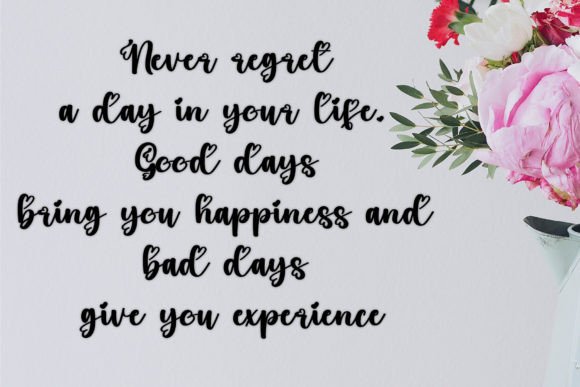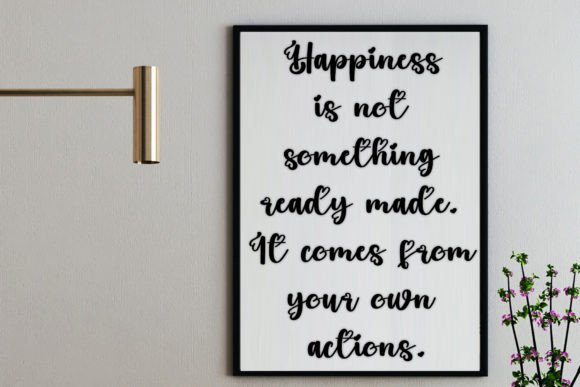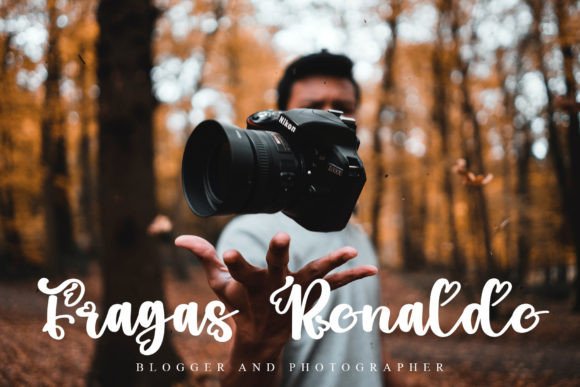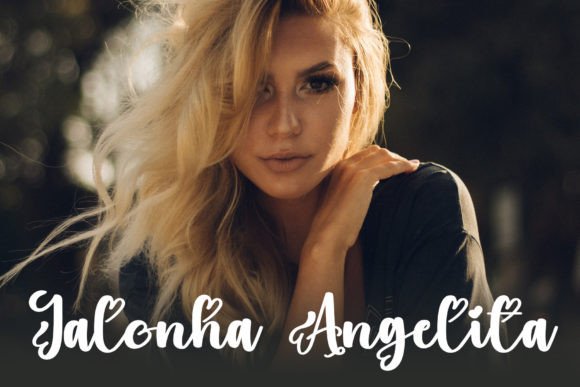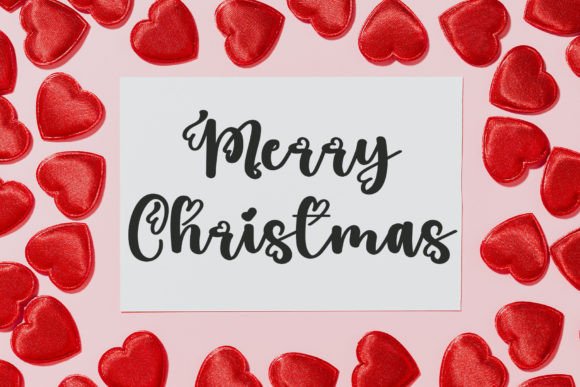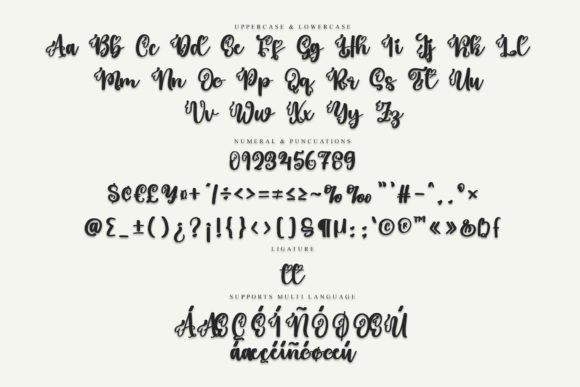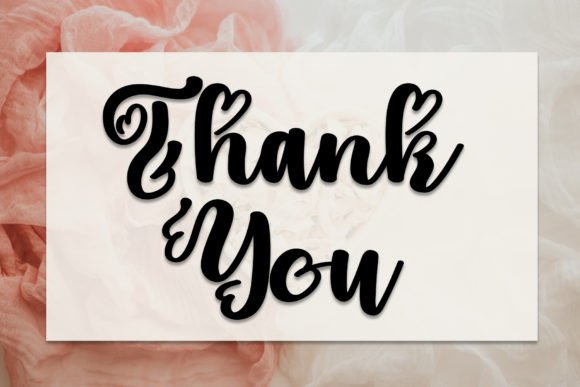
Romantic Font
Romantic is a robust handwritten font meticulously crafted to command attention and elevate projects that demand a bold and impactful feel. This versatile font is especially well-suited for a variety of design applications, making it an ideal choice for sport-related designs, jerseys, movies, documentaries, films, logos, posters, games, book covers, headlines, titles, and much more.
The robust nature of Romantic ensures that it stands out prominently, making it an excellent fit for projects where you want to make a bold statement. Whether you’re designing sports-related materials that need a dynamic and energetic vibe or crafting movie posters that demand a strong visual presence, Romantic delivers with its commanding strokes.
The font’s bold aesthetic enhances its suitability for headlines and titles, providing a captivating and attention-grabbing quality. Logos designed with Romantic can exude strength and confidence, making them memorable and impactful.
Romantic’s versatility shines through in its ability to adapt to various contexts without losing its bold character. From documentaries to book covers, this font has the power to emphasize the essence of your project, making it an invaluable tool for designers seeking a bold and robust handwritten typeface.
In summary, Romantic is more than just a font; it’s a design asset that packs a punch. Its robust and handwritten style ensures that it adds a bold and striking feel to your projects, making it an excellent choice for those looking to make a visual impact across a wide range of design applications.